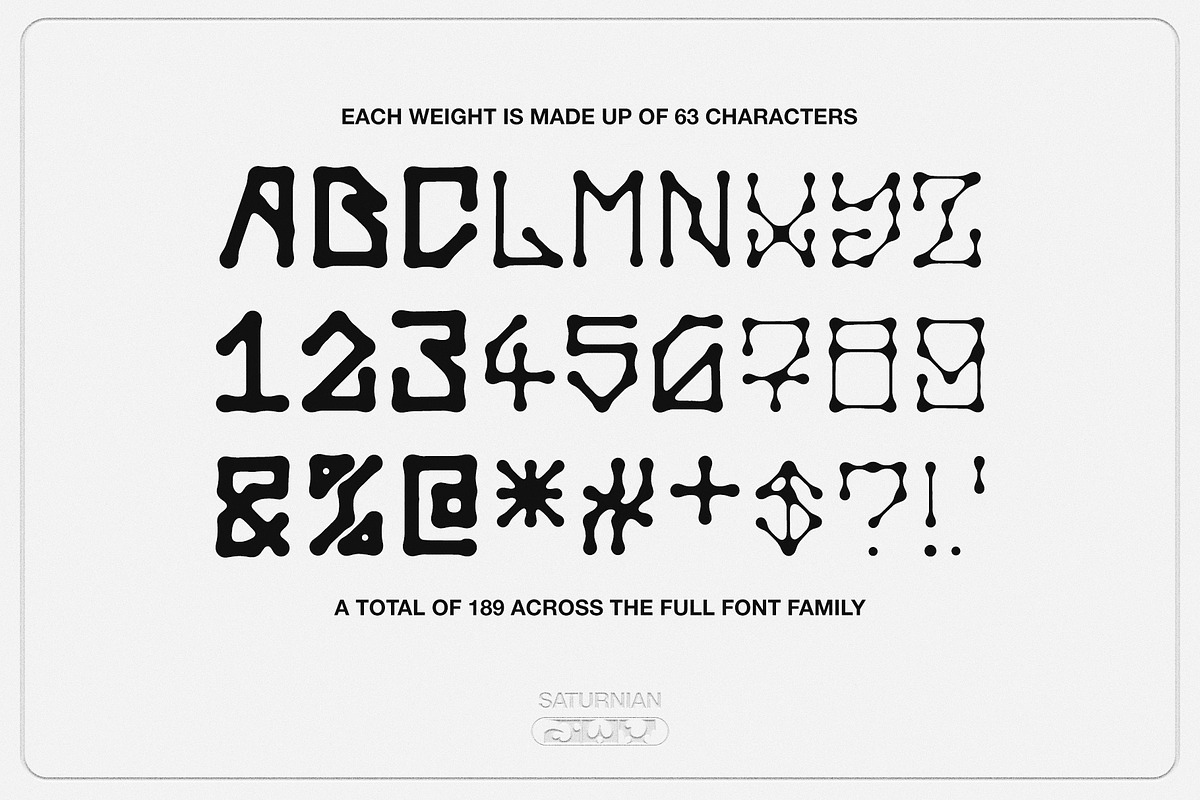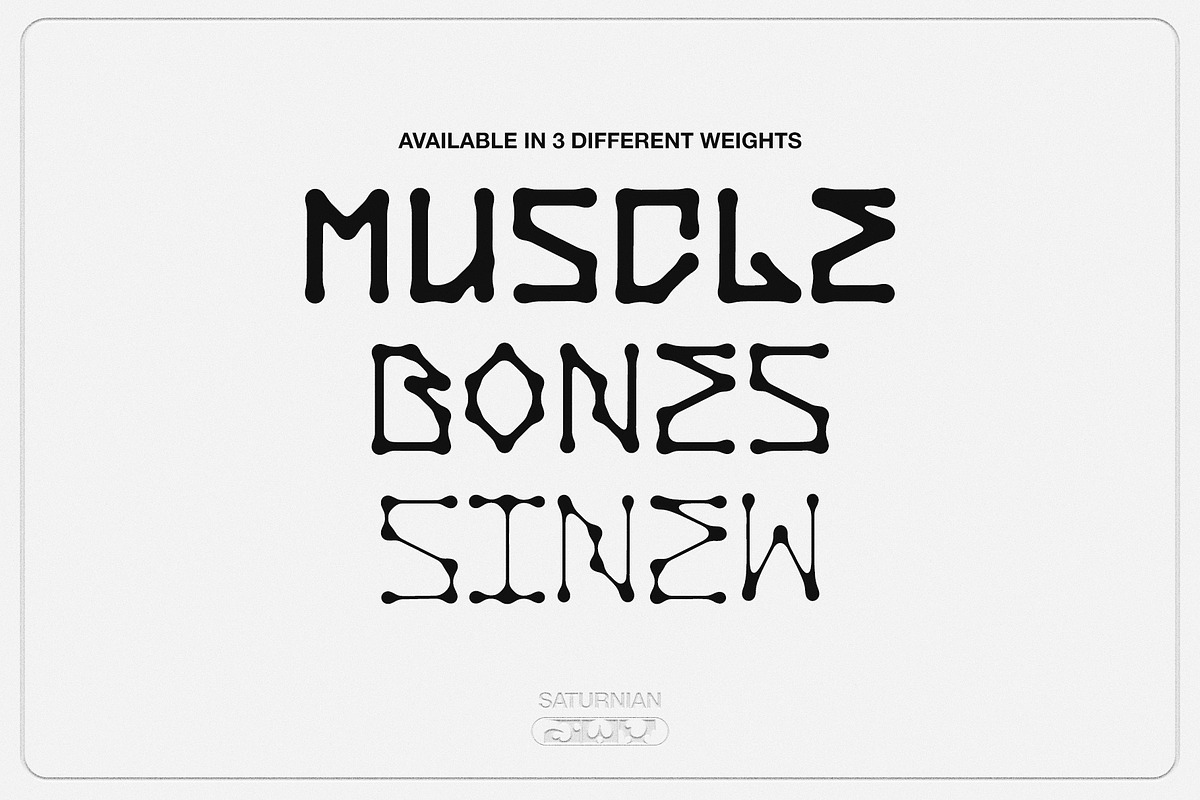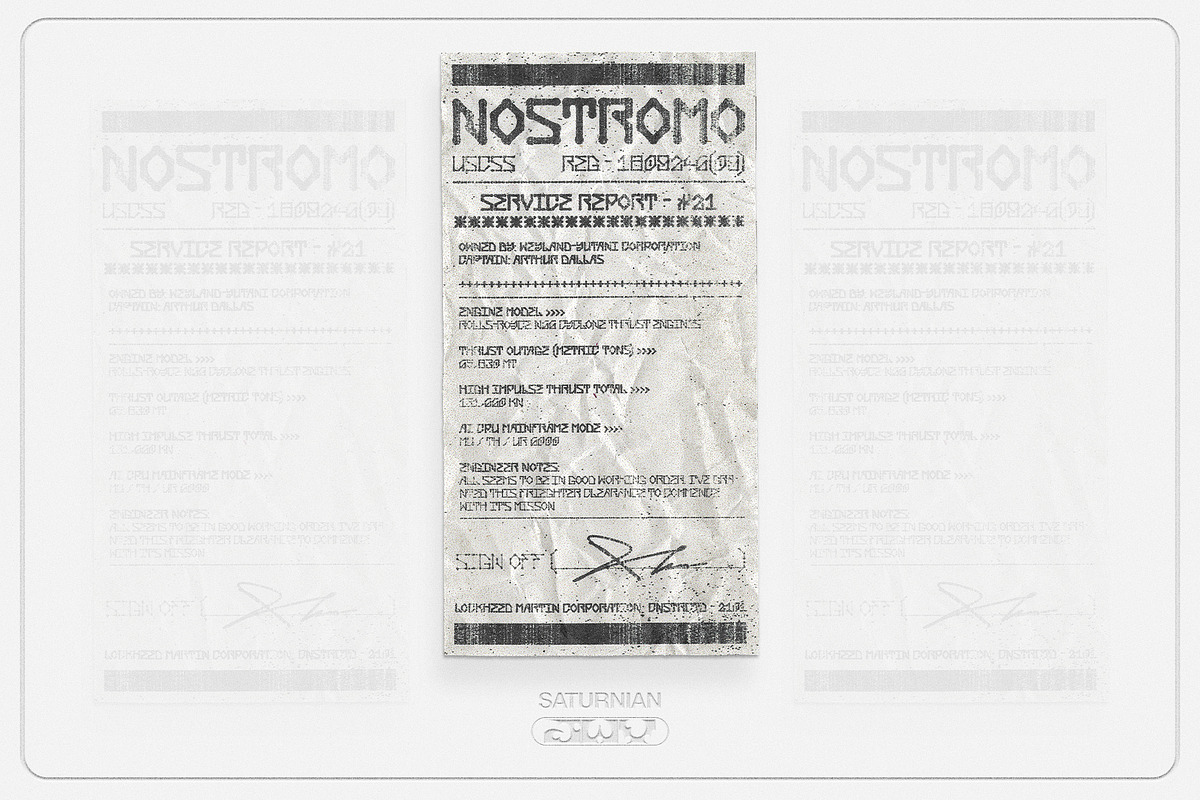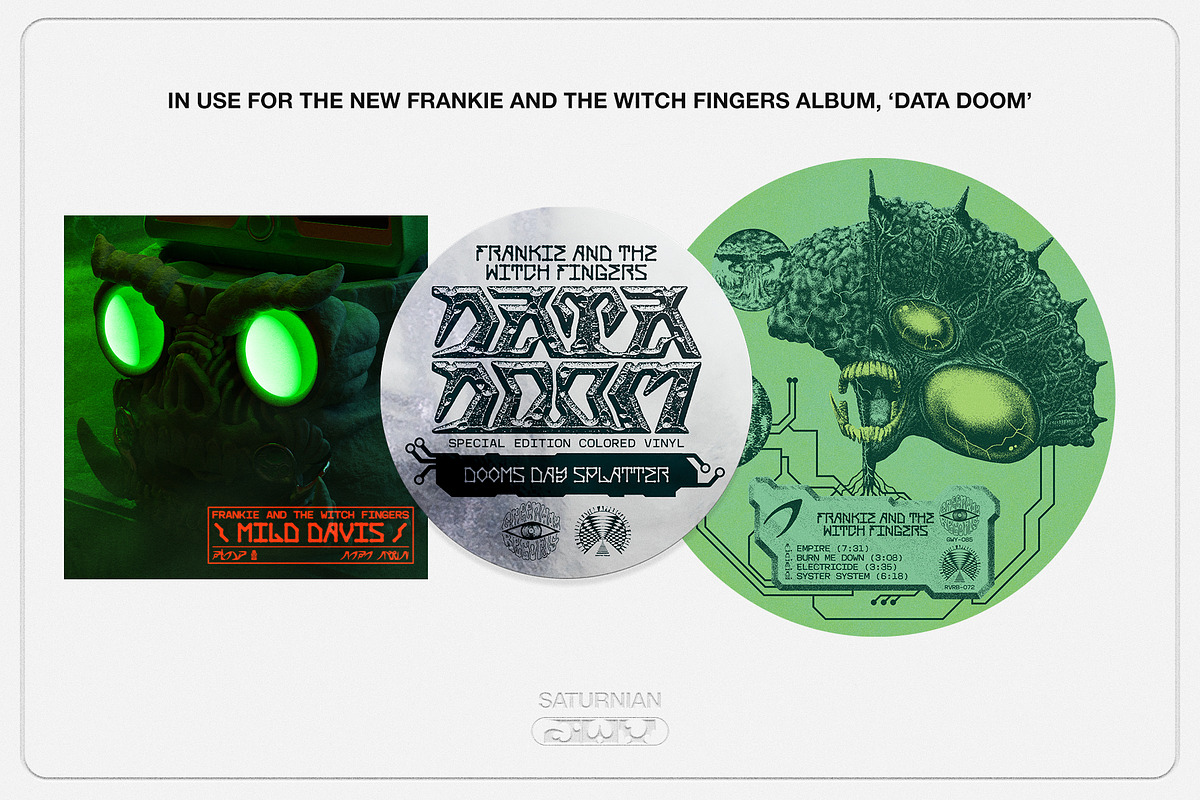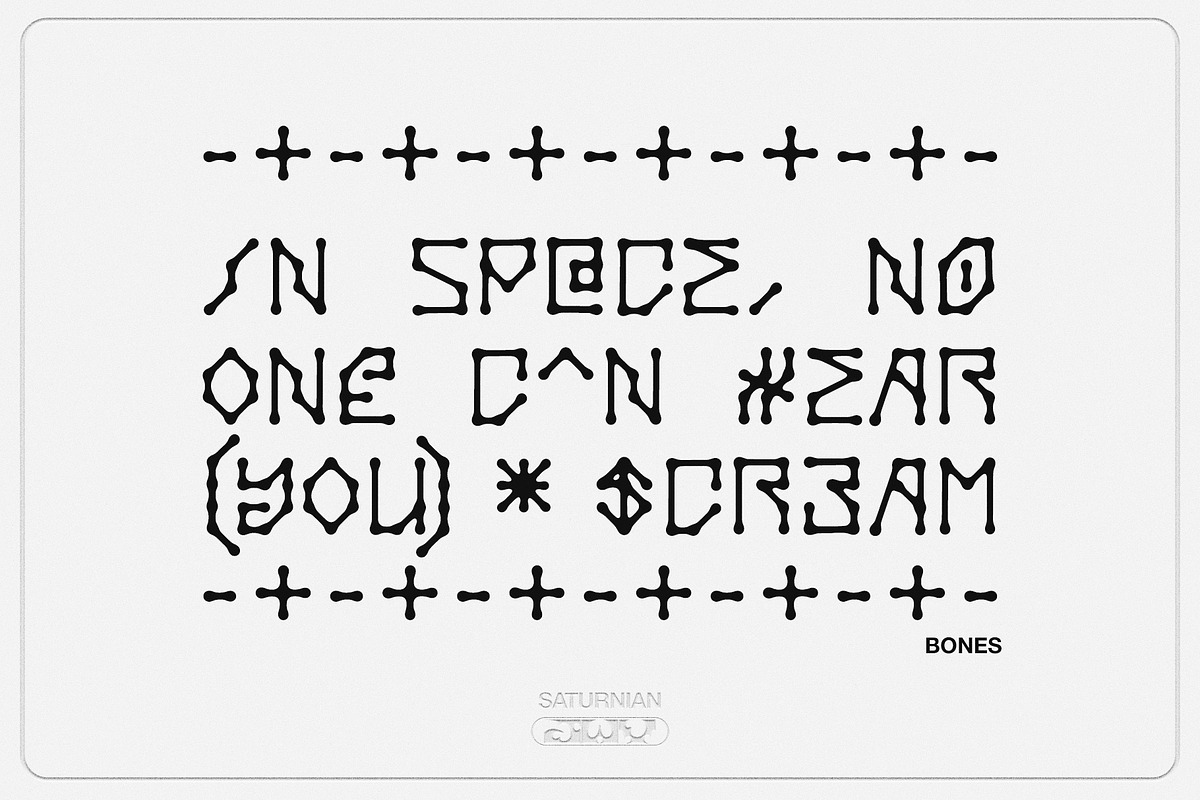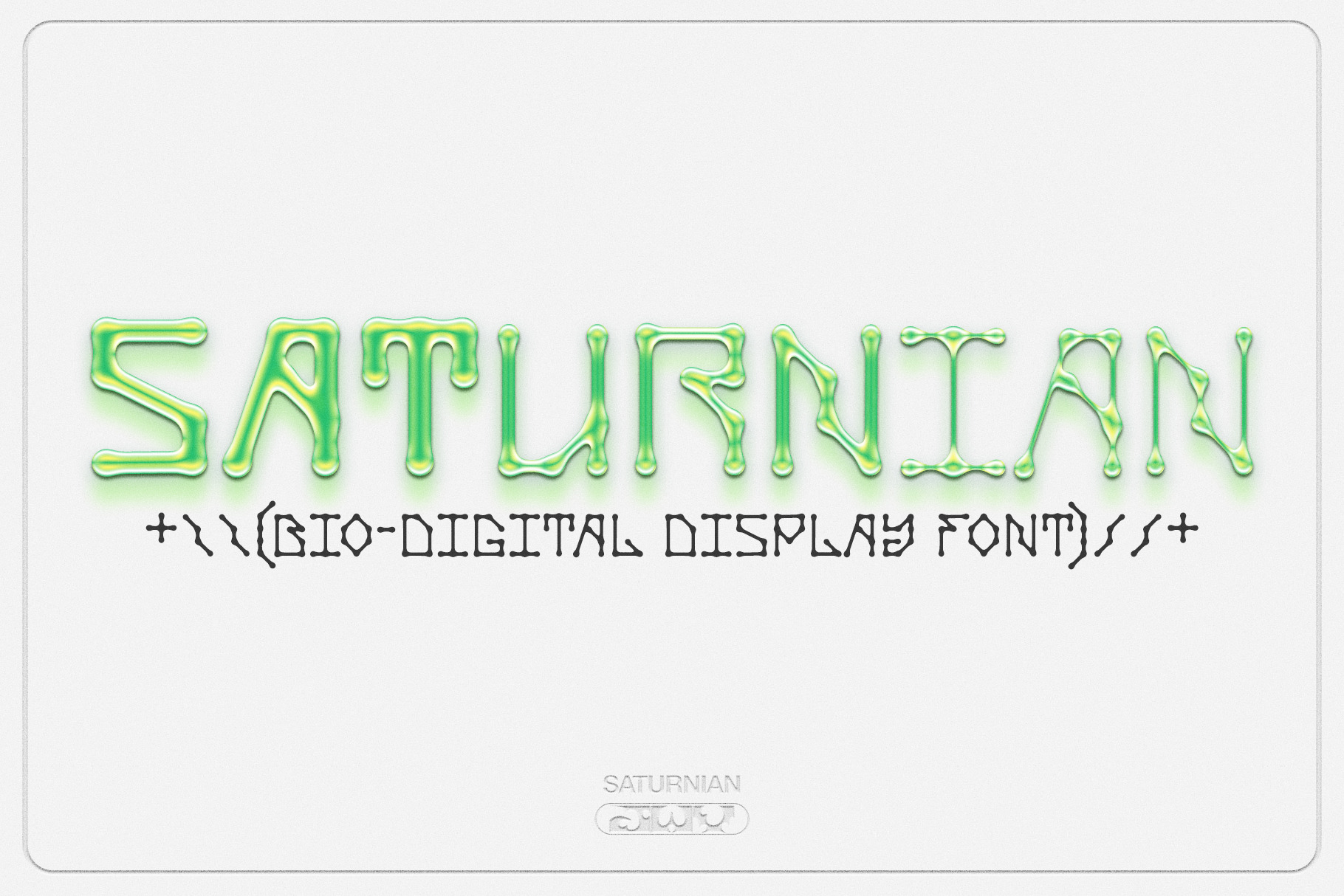
JWV - SATURNIAN - Bio-digital font
SATURNIAN is a bio-digital styled font family, built with a rigid rule set but completed with an organic finish. This is the perfect set of fonts for your 'Acheron Moon branding' project... or anything else a bit futuristic yet grimy.
The font comes in 3 unique weights, Muscle (Bold), Bones (Regular) and Sinew (Light).
The character set is made up of 189 characters including letters A-Z, numbers 0-9 and a whole host of punctuation, which can also make for cool patterns and digital display details. These fonts are .OTF
SATURNIAN has recently been used across the new album and promo campaign for LA band, Frankie and the Witch Fingers' DATA DOOM!